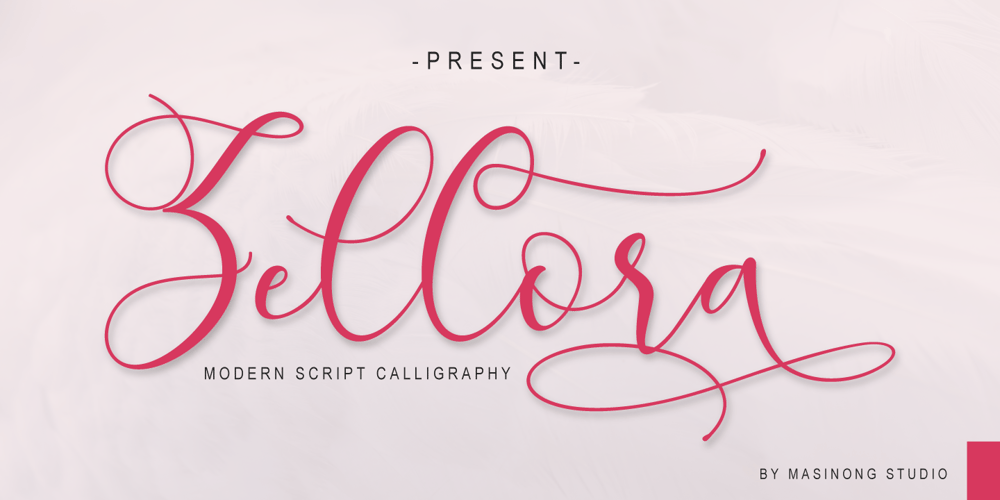
Zellora Script Font Family was designed by Fajriadi and published by Masinong Studio. Zellora Script contains 1 styles and family package options. Zellora Script modern script with a handmade calligraphy style, decorative characters and a dancing baseline. So beautiful on greeting cards, branding materials, business cards, quotes, posters, and more.Zellora Script come with 575+ glyphs. The alternative characters were divided into several OpenType features such as Swash, Stylistic Sets, Stylistic Alternates, and Ligature. The OpenType features can be accessed by using OpenType savvy programs such as Adobe Illustrator, Adobe InDesign, Adobe Photoshop Corel Draw X version, And Microsoft Word. And this Font has given PUA unicode (specially coded fonts). so that all the alternate characters can easily be accessed in full by a craftsman or designer.Zellora Script Features:Uppercase & Lowercase International Language & Symbols Support Punctuation & Number PUA Unicode Range Standard Ligatures Discretionary Ligatures Stylistic Alternates Stylistic Set 1-29:If you don’t have a program that supports OpenType features such as Adobe Illustrator and CorelDraw X Versions, you can access all the alternate glyphs using Font Book (Mac) or Character Map (Windows).If you have any question, don’t hesitate to contact me by email masinong.studio@gmail.com Thanks and happy designing :-)Thank You for purchase!